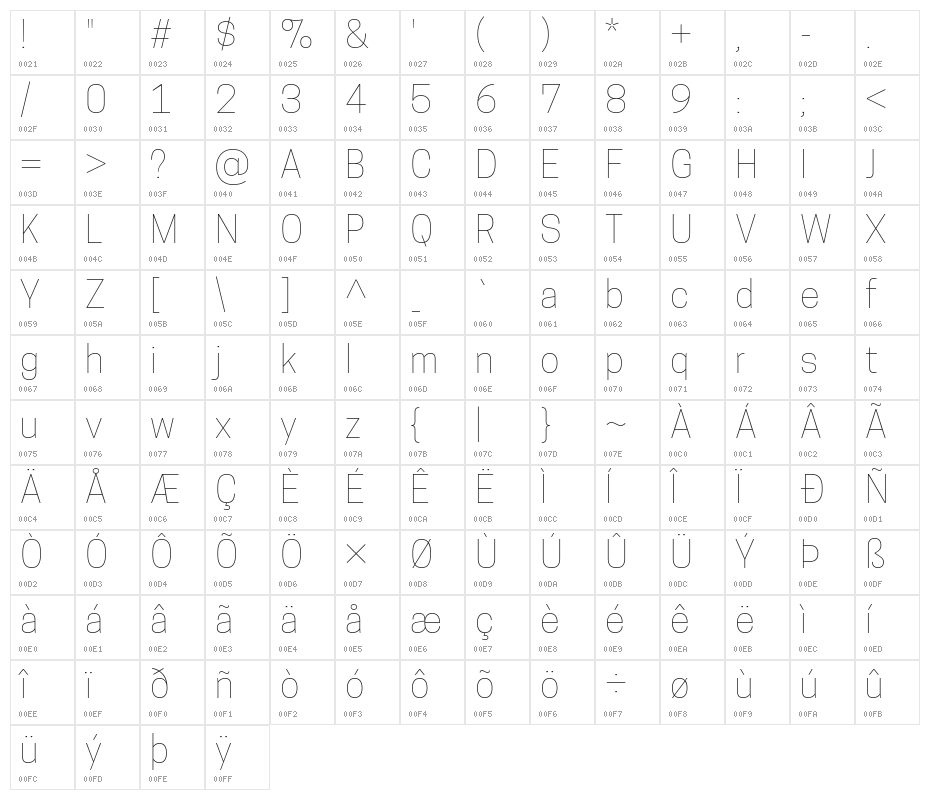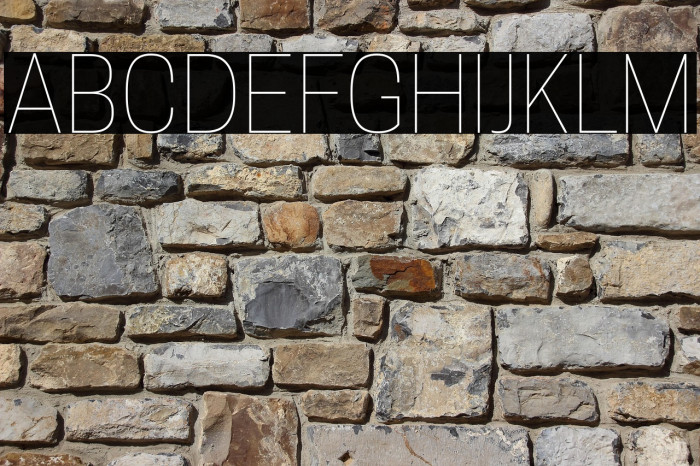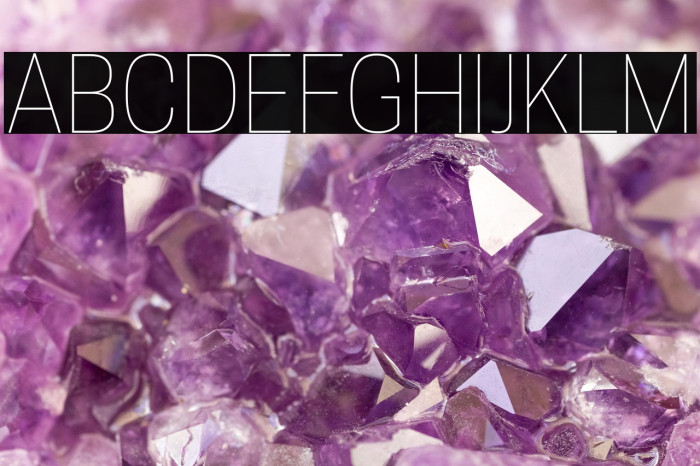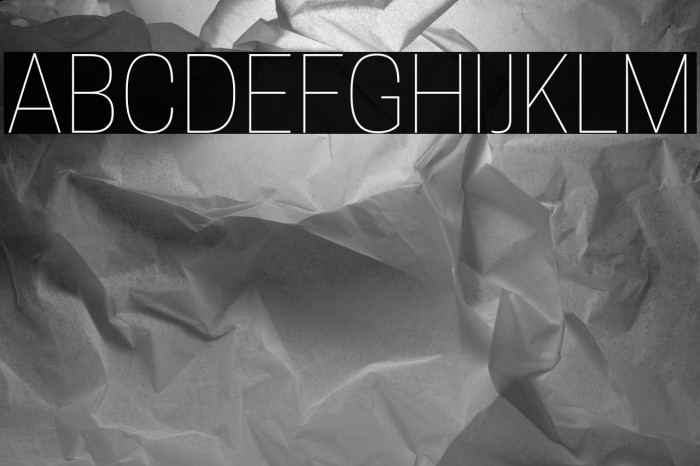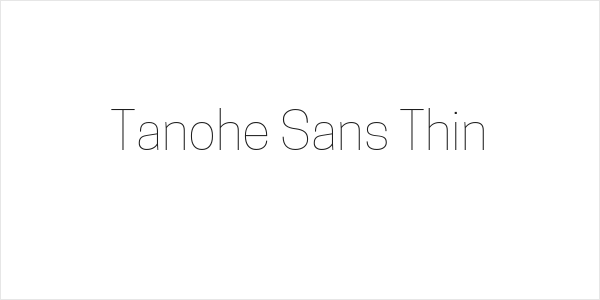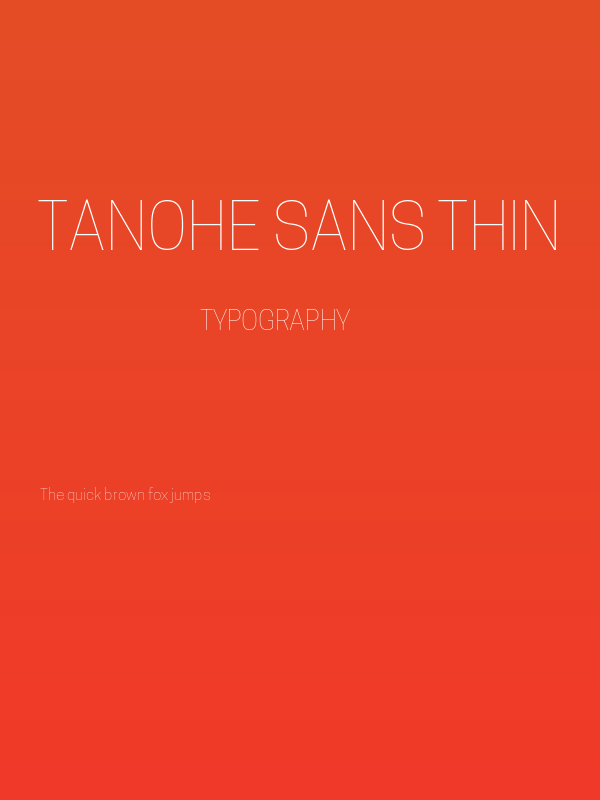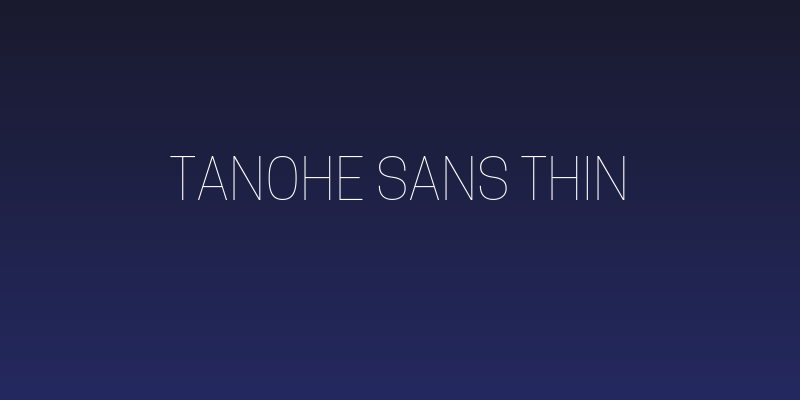
Tanohe Sans Thin Font
Tanohe Sans Thin Description
This font features a clean and minimalist design with a thin, elegant line weight. The characters are evenly spaced, providing a modern and airy feel. The uppercase and lowercase letters maintain a consistent height, contributing to a uniform appearance. The numerals are straightforward and align well with the overall style, while the special characters are crafted to match the sleek aesthetic. This font's simplicity and clarity make it highly versatile for various design applications.